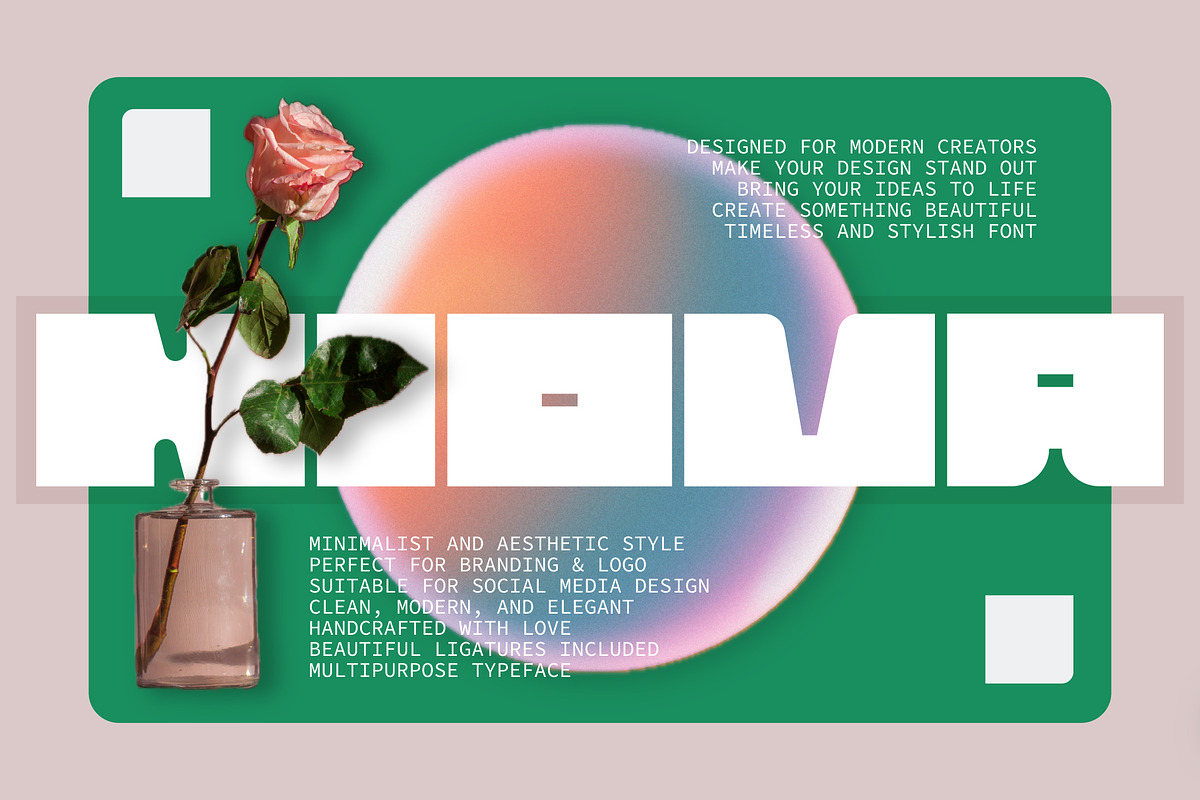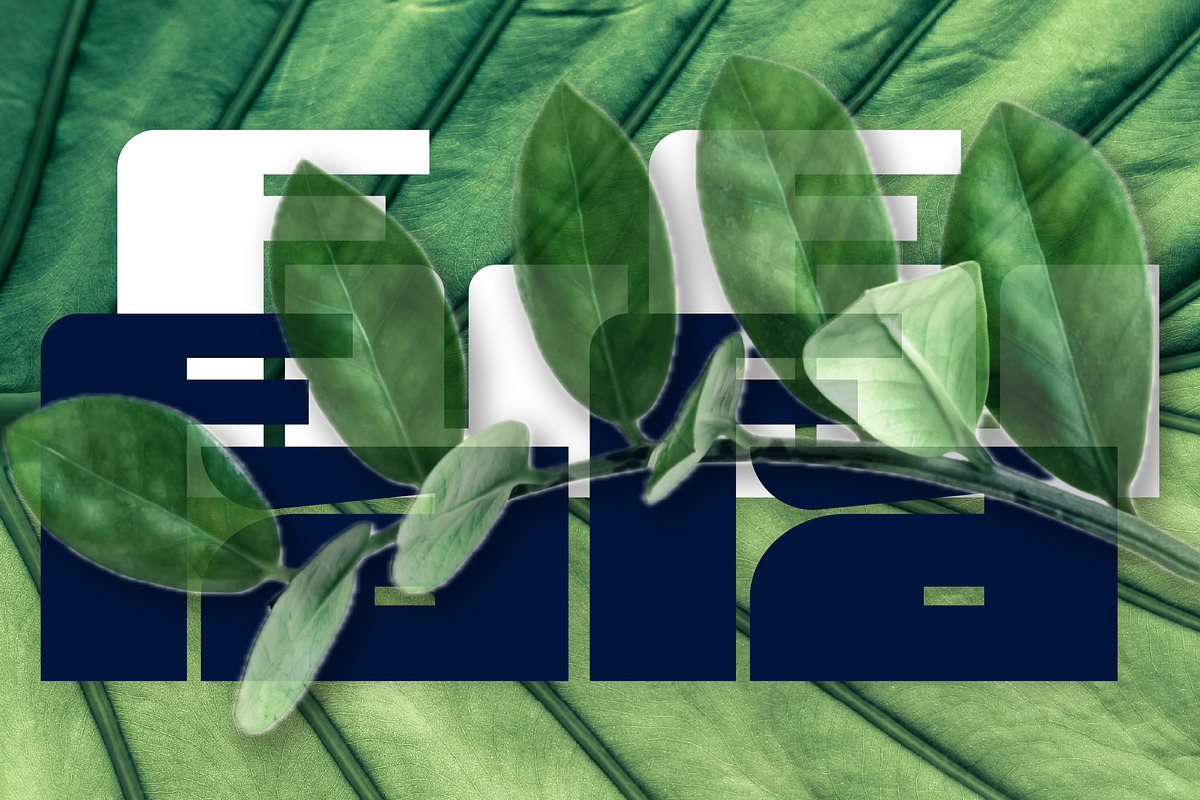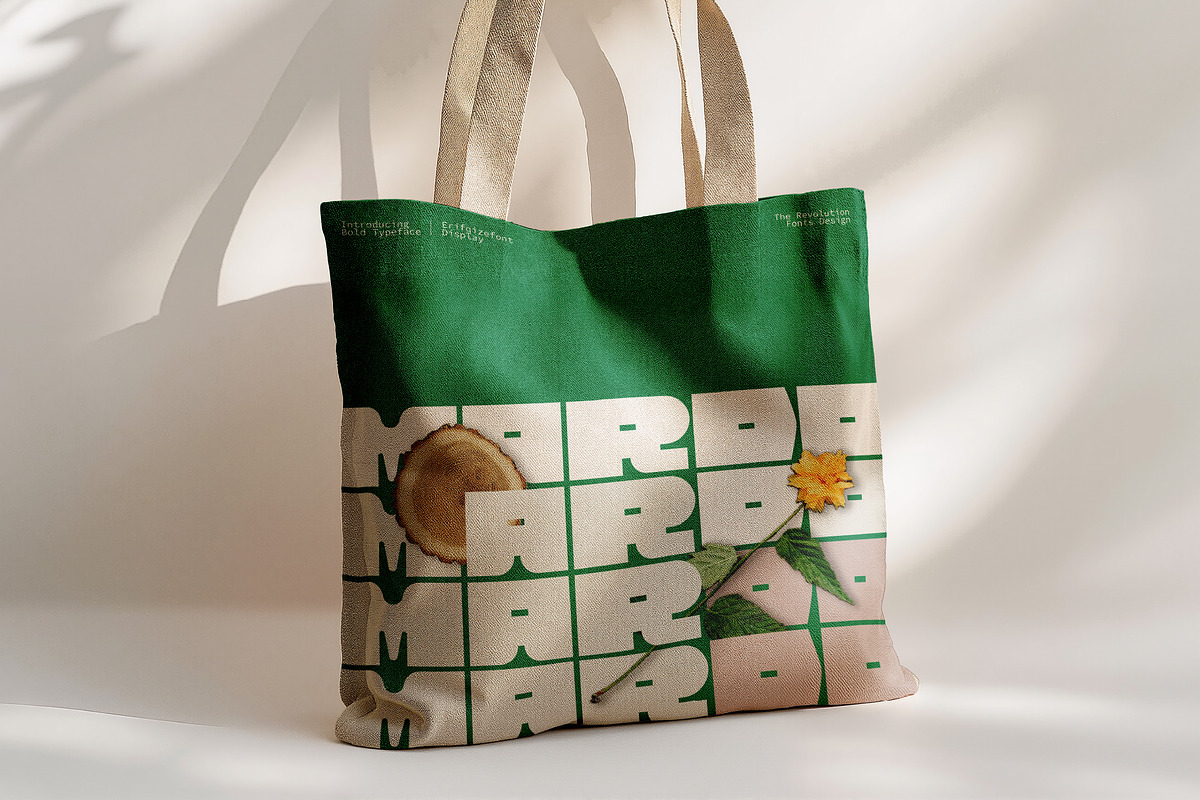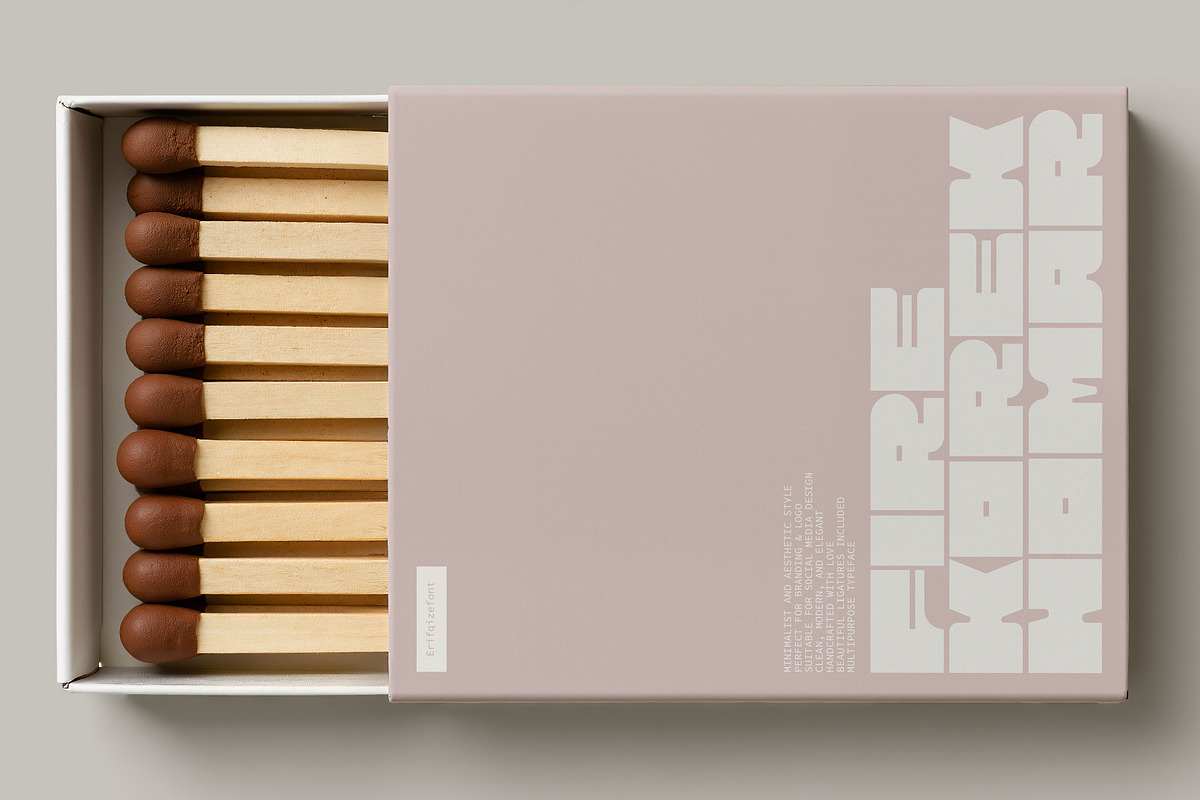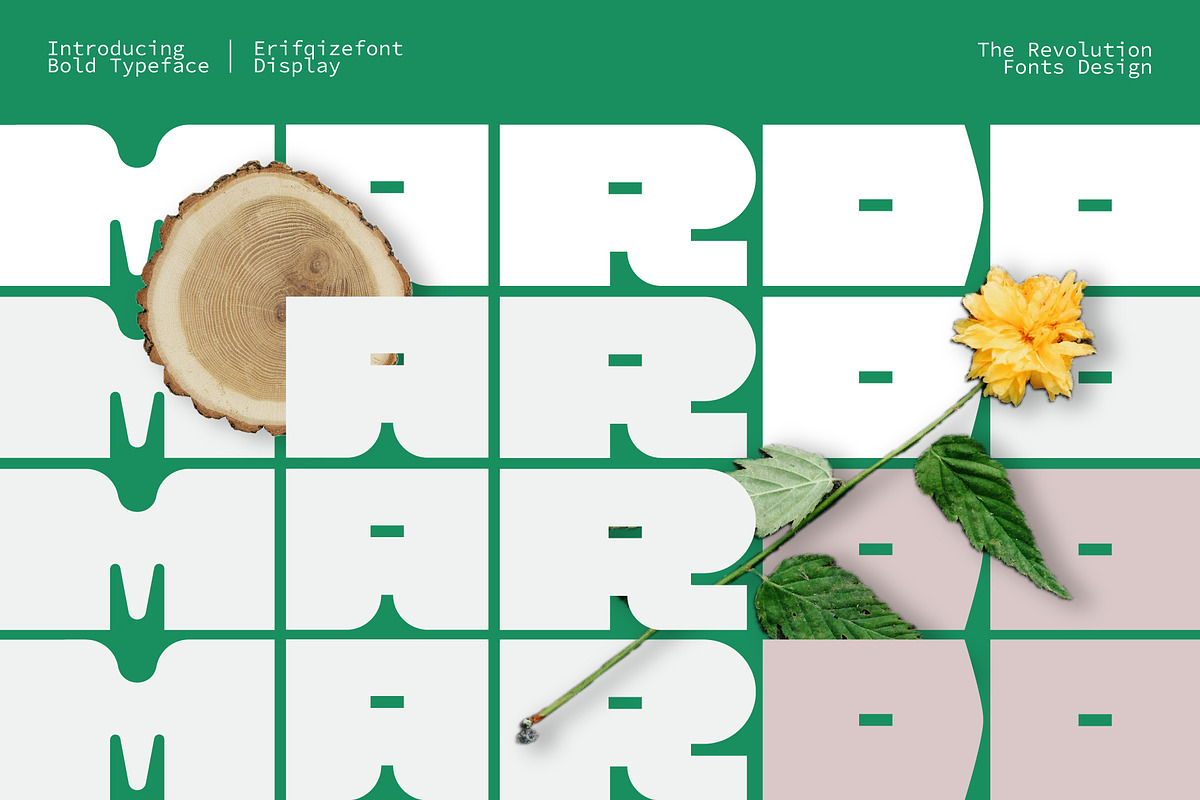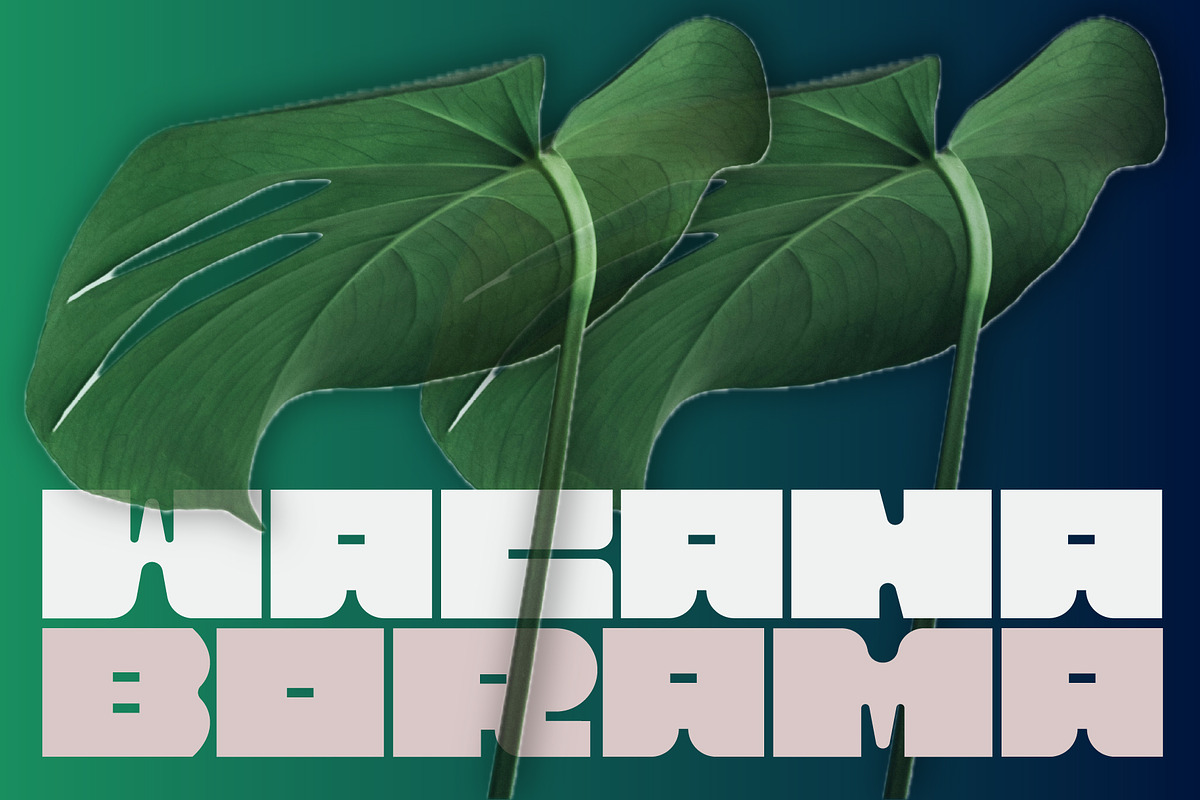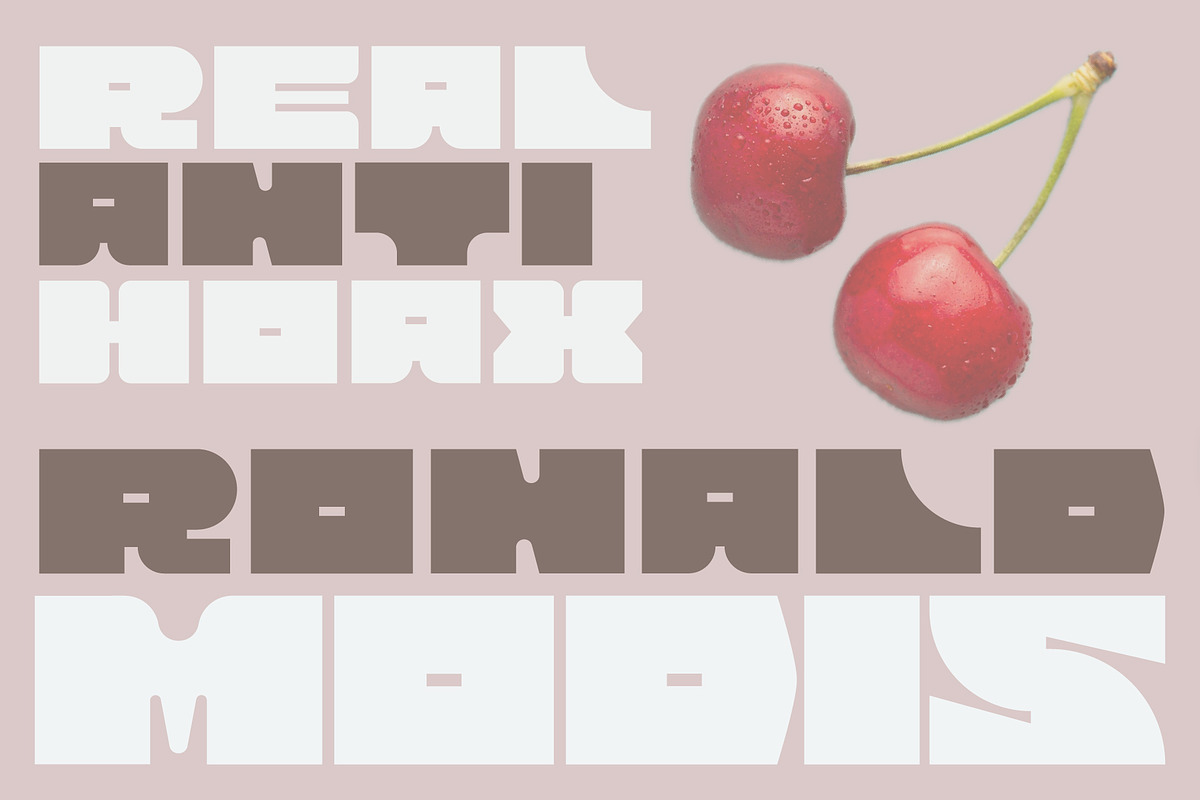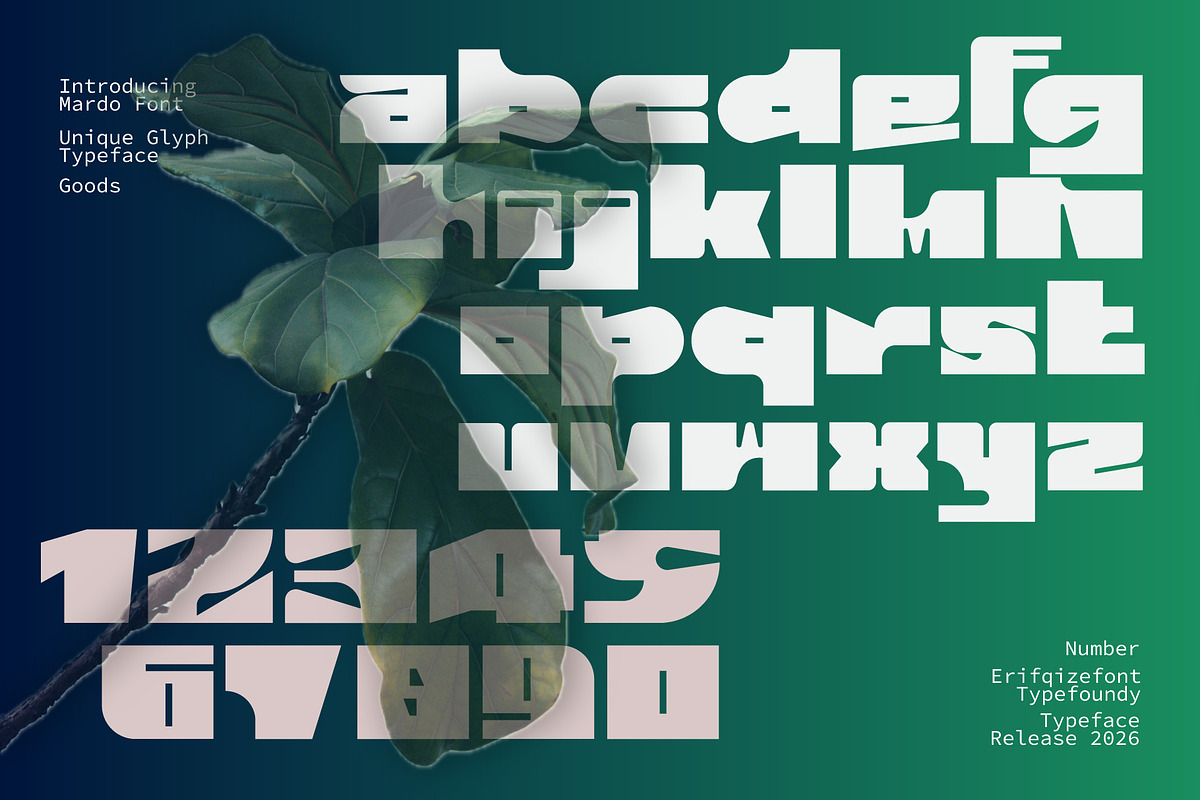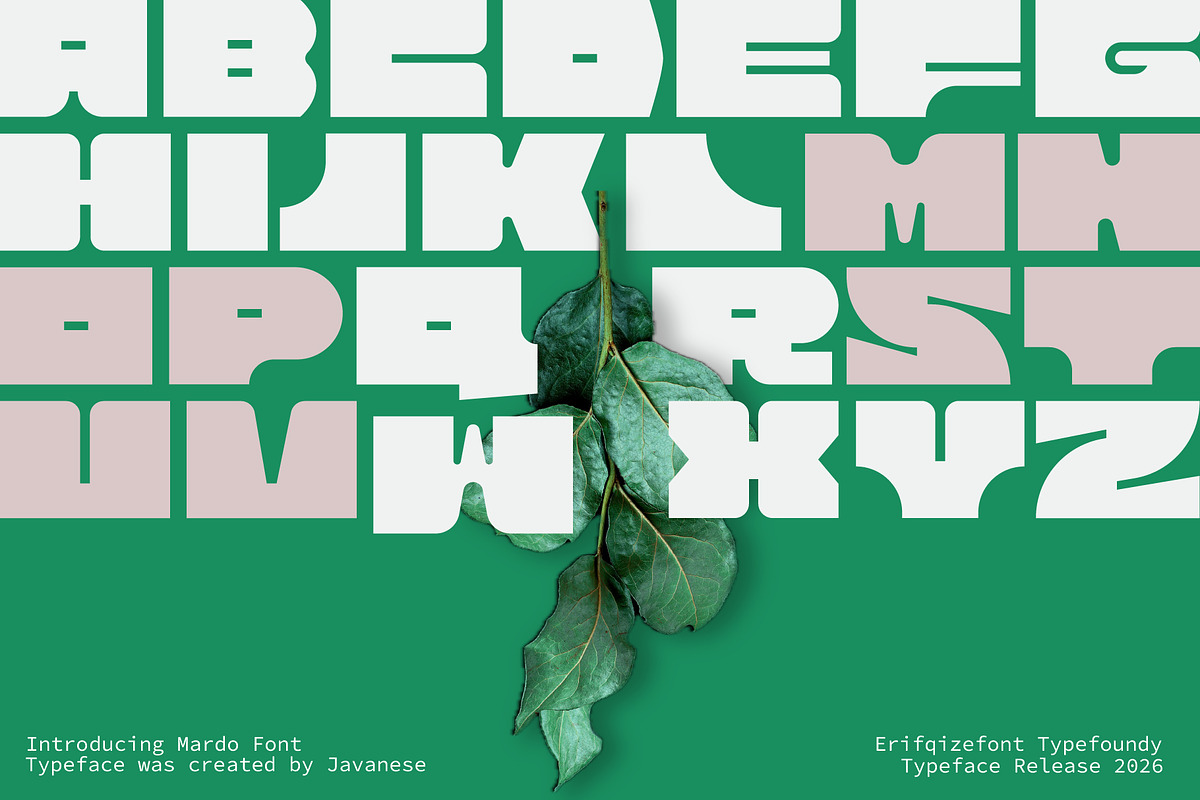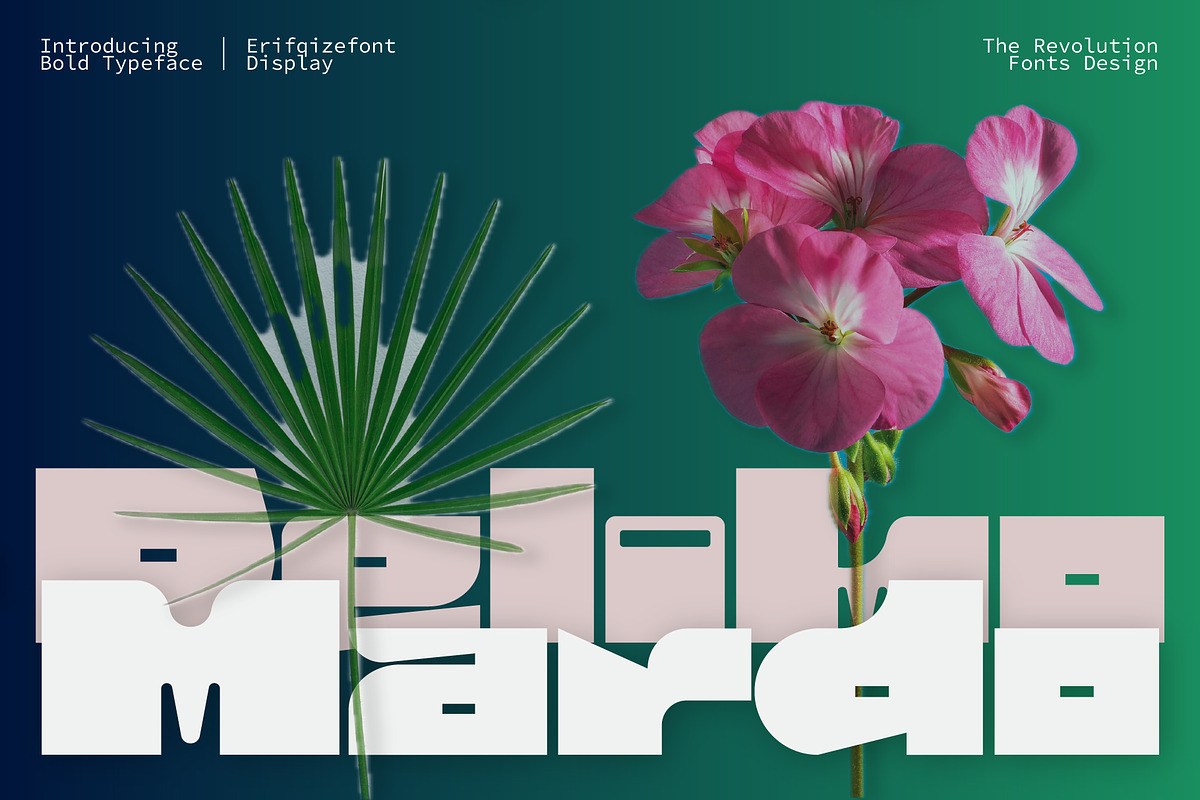
MARDO – Bold Geometric Display
MARDO – Bold Geometric Display Typeface
Make a fearless statement with Mardo, a revolutionary display font built for the modern era. Designed with a heavy, block-based structure and sharp geometric precision, Mardo is the ultimate tool for designers who need their headlines to command instant attention.
Mardo strikes a perfect balance between industrial strength and contemporary art. Its solid architecture and unique negative space make it an ideal choice for high-impact branding, streetwear labels, brutalist-style posters, and massive digital headlines. Whether you're working on a minimalist project or a bold urban campaign, Mardo provides the visual weight and professional edge your work deserves.
Main Features: Bold & Heavy: Perfectly optimized for headlines and large-scale displays. Geometric Precision: Clean, sharp lines for a professional industrial look. Versatile Use: Ideal for branding, logos, posters, apparel, and social media. Modern Aesthetic: Fits seamlessly into Brutalist, Urban, and Futuristic design trends.